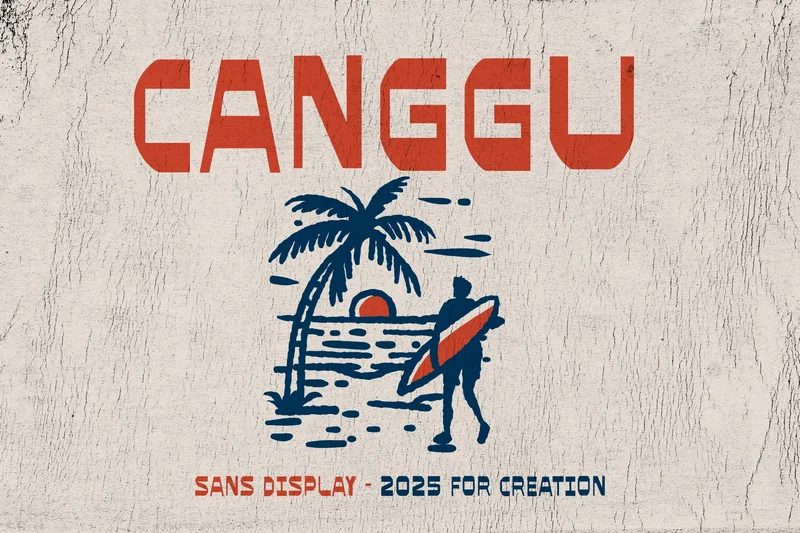
Canggu Creation
Canggu Creation is a bold sans display font inspired by beach culture, surf lifestyle, and handcrafted signage. With sharp geometric edges and a slightly rustic texture, it captures the laid-back vibe of coastal life while maintaining strong visual impact. Ideal for branding, poster design, merchandise, and travel-themed projects, Canggu Creation brings a punchy and adventurous look to your creative work.